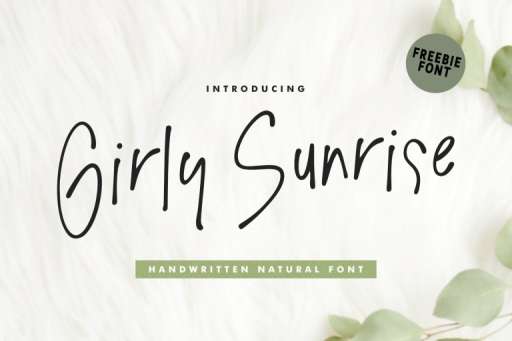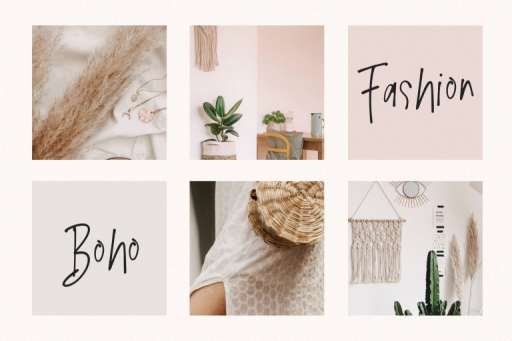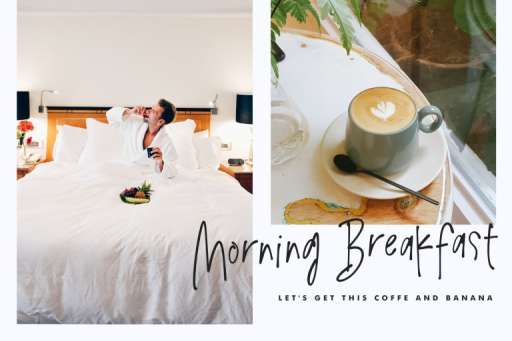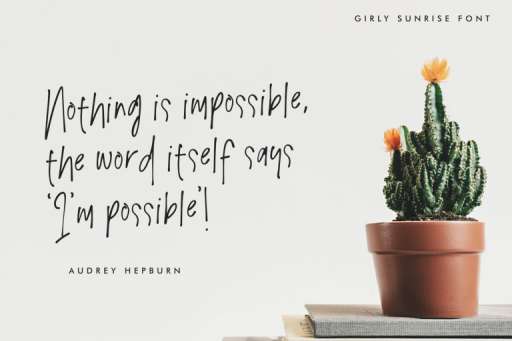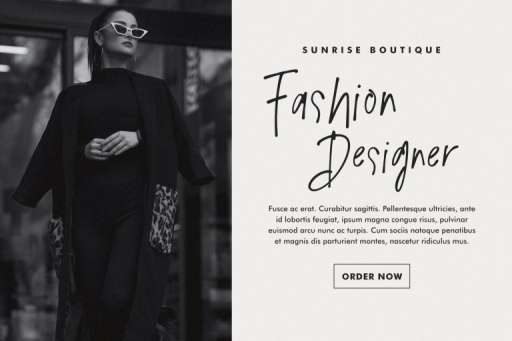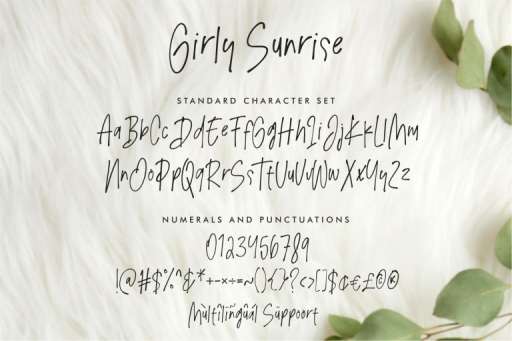
Girly Sunrise Font
Girly Sunrise – Handwritten Pen Font
Introducing the delightful ‘Girly Sunrise Handwritten Pen Font,’ a dreamy and graceful typeface that will breathe life into your designs! With its elegant strokes and feminine charm, this font is perfect for adding a touch of whimsy and sophistication to your projects. Whether it’s invitations, greeting cards, or social media posts, ‘Girly Sunrise‘ will make your creations bloom like a radiant sunrise. Elevate your designs and let your creativity shine with this enchanting handwritten pen font.